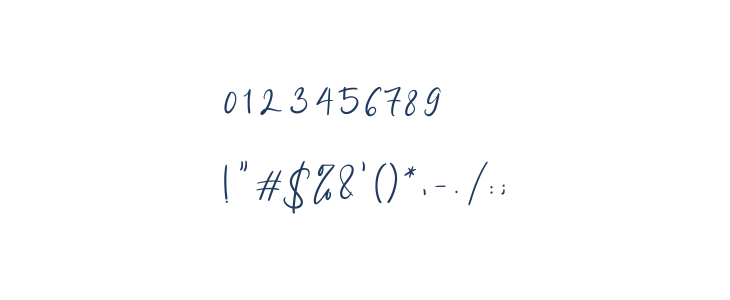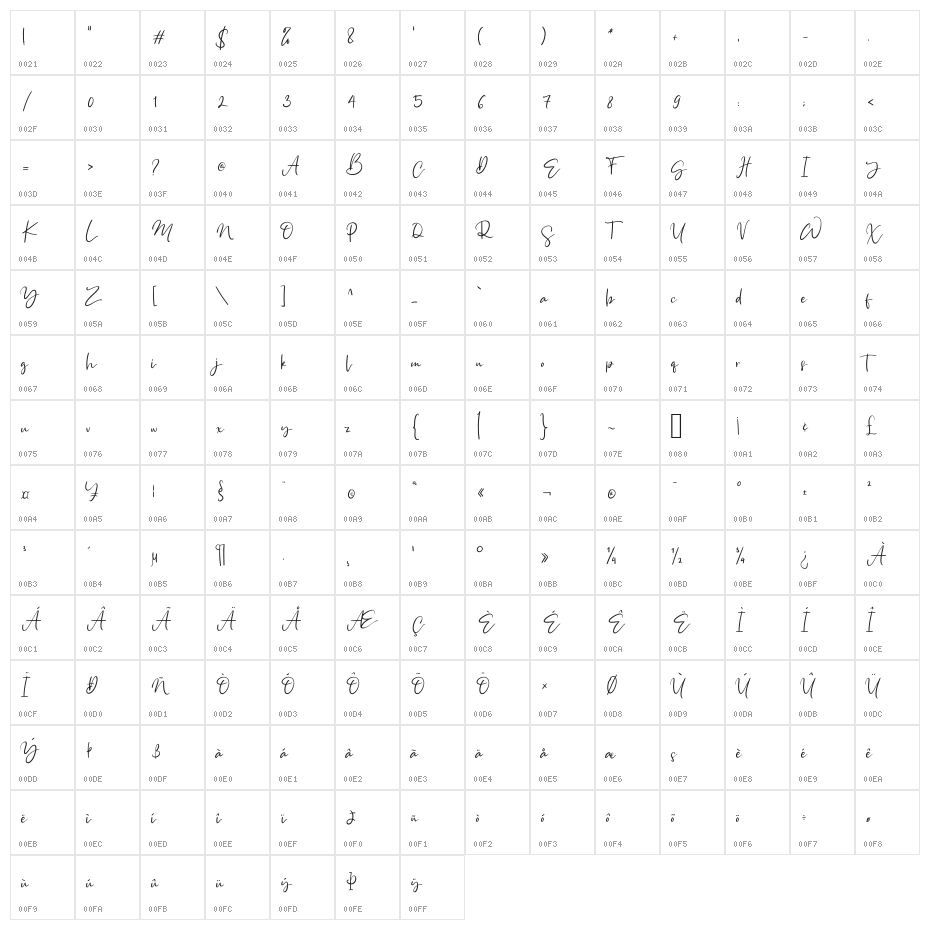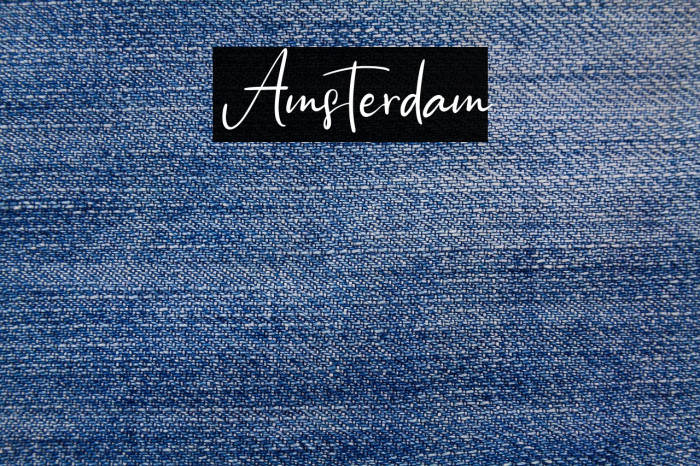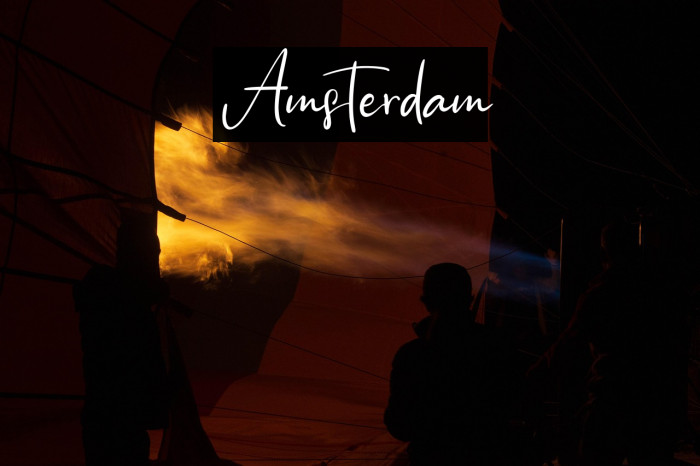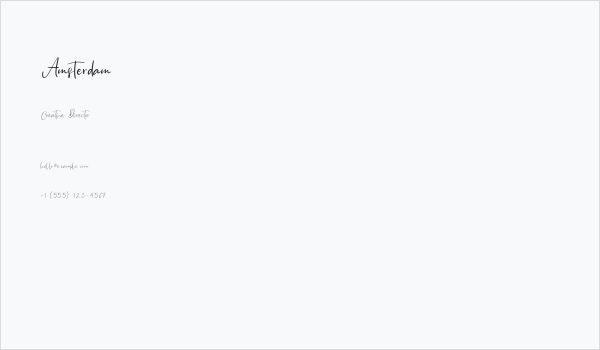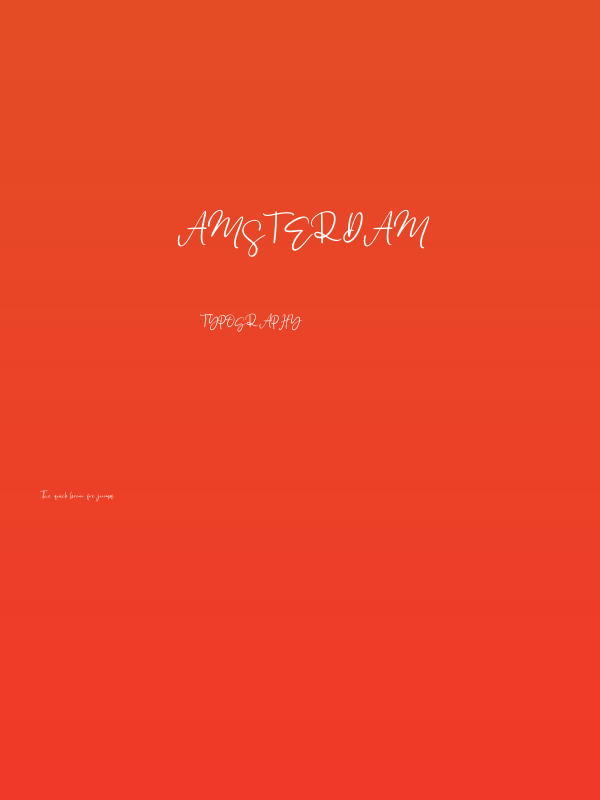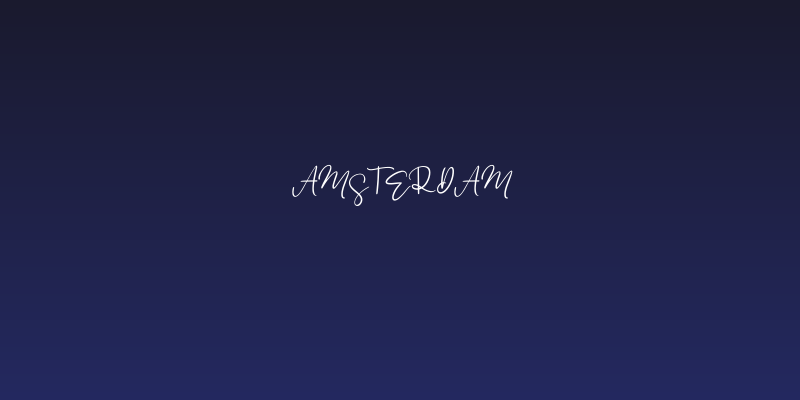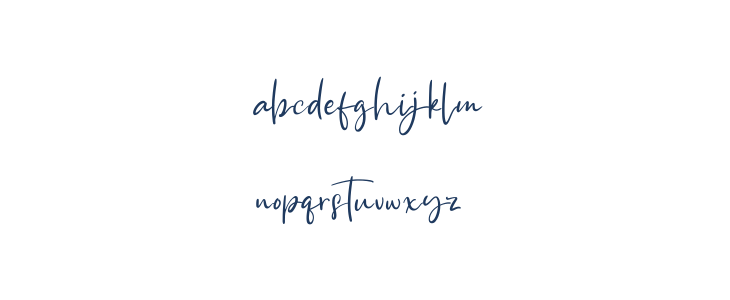
Amsterdam Font
Amsterdam Description
This font features a flowing, cursive style that mimics elegant handwriting. The uppercase letters are bold and sweeping, with a distinct flair that adds a touch of sophistication. The lowercase letters maintain a consistent flow, creating a harmonious and connected appearance. Numbers and special characters are designed with the same fluidity, ensuring a cohesive look across all text. The overall impression is one of grace and fluidity, making it suitable for projects that require a personal and artistic touch.
Use CaseLogos, Invitations, Artistic projects
Proposed ProjectsIdeal for wedding invitations, greeting cards, personal branding, and artistic projects that require a touch of elegance.